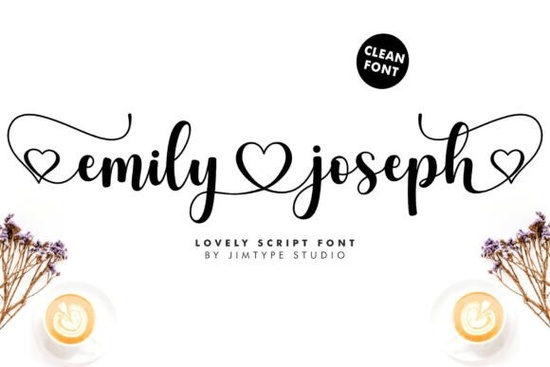
Emily Joseph Font is a standout choice for anyone looking to add a touch of romance and elegance to their designs. This script font, with its flowing lines and heart-shaped swashes, feels like a personal message written by hand. Whether you're designing wedding invitations or creating custom jewelry labels, Emily Joseph brings a sense of intimacy that’s hard to match. Its smooth strokes and consistent flow make it ideal for projects that require a warm, heartfelt feel.
If you're searching for a font that can transform simple text into something truly special, Emily Joseph is worth exploring. It's perfect for designers, crafters, and small business owners who want to add a unique, personalized touch to their work. The font’s PUA encoding makes it easy to access all the special characters and swashes, giving you more creative freedom without complicated steps.
What makes Emily Joseph Font special? One of the most noticeable features is the way the letters connect through elegant loops and heart-shaped swashes. These details give the font a handmade quality that feels genuine and thoughtful. It’s not just about looking good it’s about conveying emotion. Whether you’re writing a love note or designing a logo for a boutique, this font helps express feelings that words alone sometimes can’t capture.
The versatility of Emily Joseph makes it a great addition to any designer’s toolkit. It works well for both digital and print projects, and its high-quality connections ensure that it looks professional no matter where it’s used. You’ll find it especially useful for sentimental occasions like weddings, birthdays, or Valentine’s Day. Its ability to blend style with substance makes it a favorite among creative professionals.
How can you use Emily Joseph Font in your work? The possibilities are endless. For example, if you run a print-on-demand store, this font could help you create custom T-shirts, mugs, or greeting cards that stand out. Photographers might use it for client logos or social media graphics, while jewelry designers could incorporate it into product labels or packaging. The font’s elegance and clarity make it suitable for a wide range of applications.
When choosing a font, it’s important to think about how it will fit with your overall design aesthetic. Emily Joseph is best suited for projects that require a soft, romantic tone. If you’re working on something more modern or minimalist, you might prefer a different style. But for anything that calls for warmth and personality, this font is a strong contender.